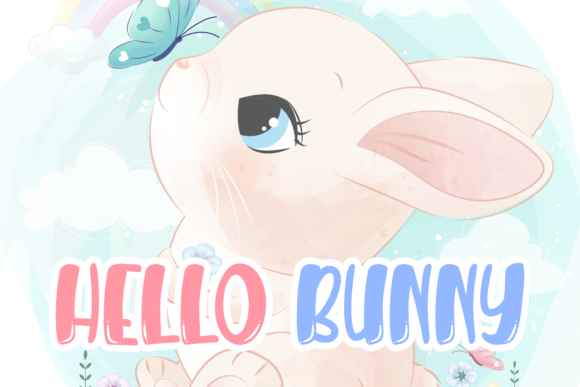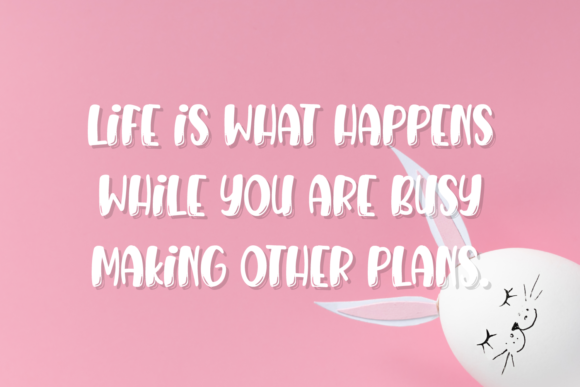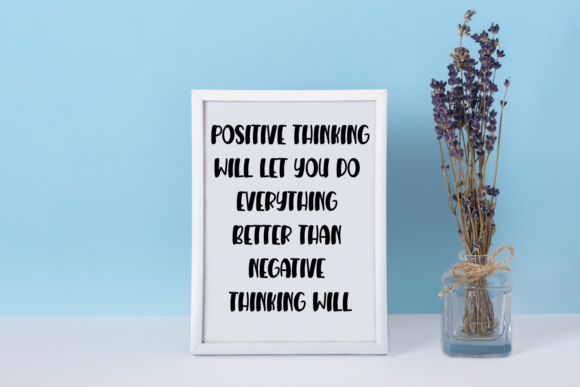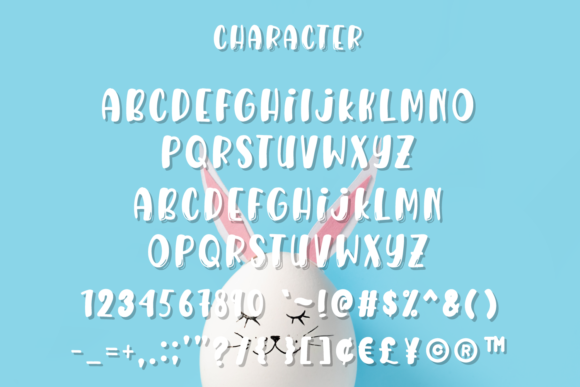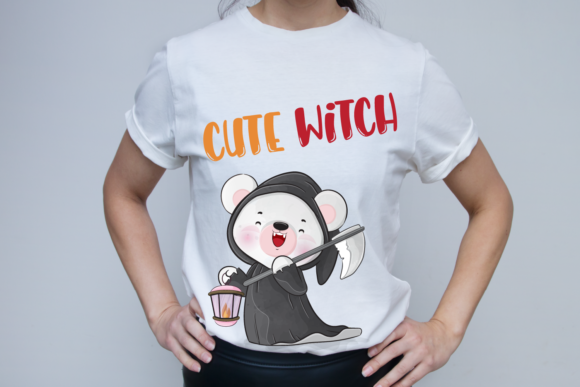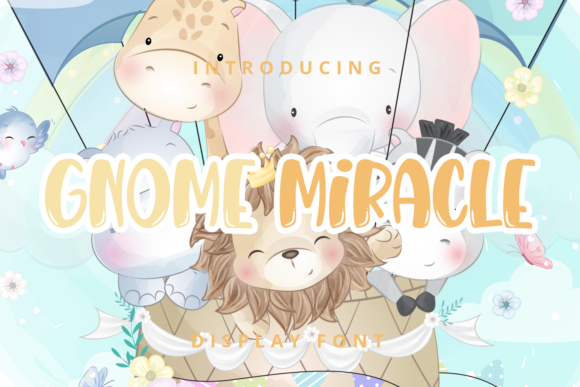
Gnome Miracle Font: The Cool and Friendly Display Font You Need
Are you tired of using the same old fonts for your creative projects? Look no further! Introducing Gnome Miracle, a cool and friendly display font that’s sure to make your designs stand out. In this article, we’ll dive into the world of Gnome Miracle and explore its features, benefits, and uses.
What is Gnome Miracle Font?
Gnome Miracle is a beautiful display font designed to add a touch of magic to your creative projects. Its unique and quirky style makes it perfect for designers, crafters, and anyone looking to add some personality to their work. With its clean lines, rounded edges, and playful feel, Gnome Miracle is sure to capture the attention of your audience.
Key Features of Gnome Miracle Font
- Unique and Quirky Style: Gnome Miracle has a one-of-a-kind design that’s sure to make your projects stand out.
- Clean Lines and Rounded Edges: The font’s smooth lines and rounded edges give it a friendly and approachable feel.
- Playful and Fun: Gnome Miracle is perfect for projects that require a playful and fun tone.
- High-Quality Design: The font is designed with high-quality craftsmanship, ensuring it looks great in any size or format.
Benefits of Using Gnome Miracle Font
So, why should you use Gnome Miracle font in your projects? Here are just a few benefits:
- Adds Personality to Your Work: Gnome Miracle’s unique style adds a touch of personality to your projects, making them more engaging and memorable.
- Perfect for Display Text: The font is designed specifically for display text, making it perfect for headlines, titles, and other prominent text.
- Easy to Read: Despite its playful style, Gnome Miracle is easy to read, even in smaller sizes.
- Versatile: The font can be used in a variety of projects, from digital designs to print materials.
Uses of Gnome Miracle Font
So, what can you use Gnome Miracle font for? The possibilities are endless! Here are a few ideas:
- Logos and Branding: Use Gnome Miracle to create a unique and memorable logo for your business or brand.
- Social Media Graphics: Add a touch of personality to your social media graphics with Gnome Miracle.
- Posters and Flyers: Use the font to create eye-catching posters and flyers that grab attention.
- Digital Designs: Gnome Miracle is perfect for digital designs, including website headers, email newsletters, and more.
- Crafting and Scrapbooking: Add a playful touch to your crafting and scrapbooking projects with Gnome Miracle.